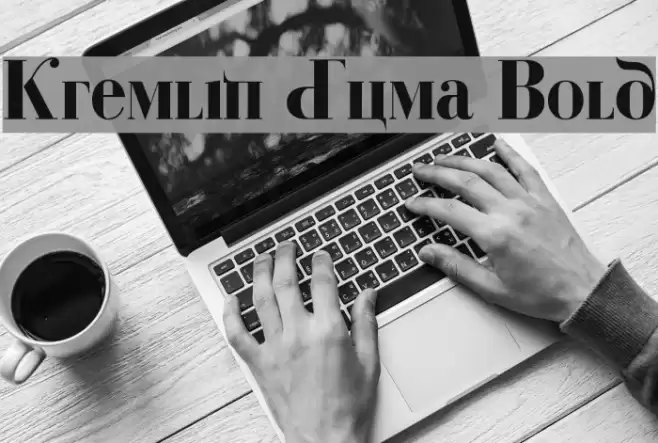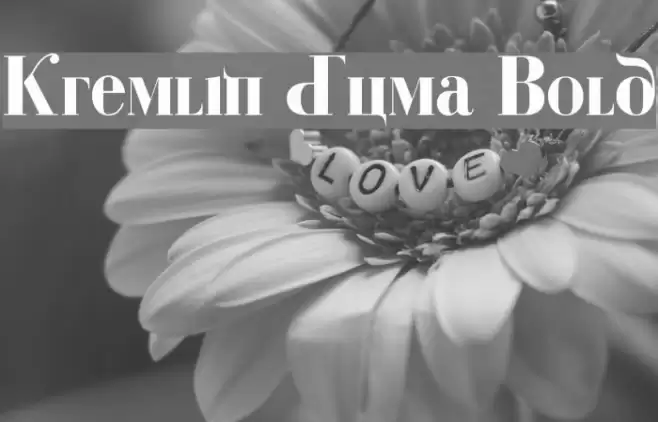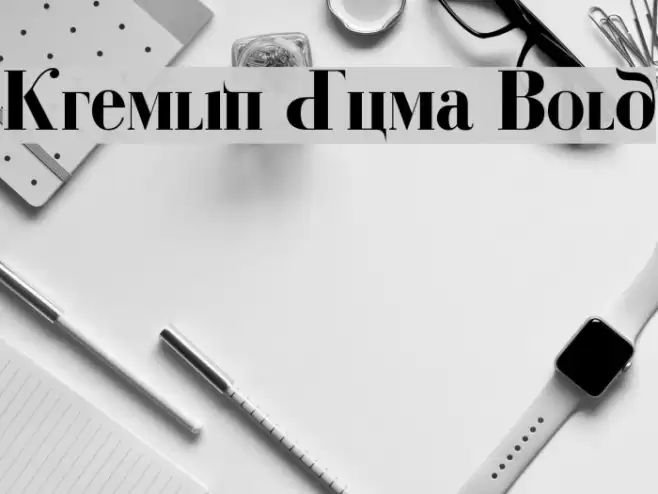
Kremlin Duma Bold Font
Kremlin Duma Bold Description
This font features a bold and striking design with a strong presence. The characters are crafted with high contrast between thick and thin strokes, giving it a dramatic and elegant appearance. The uppercase letters are particularly ornate, with unique flourishes and serifs that add a touch of sophistication. The lowercase letters maintain a consistent style, complementing the uppercase with their own subtle curves and details. The numerals are bold and clear, ensuring readability while maintaining the overall aesthetic. Special characters are designed to match the font's distinctive style, making it suitable for a variety of creative applications.
A bold, high-contrast font with ornate serifs and dramatic flourishes from Uncategorized fonts.
- Proposed Projects: Ideal for branding, headlines, posters, and editorial design where a strong visual impact is desired.